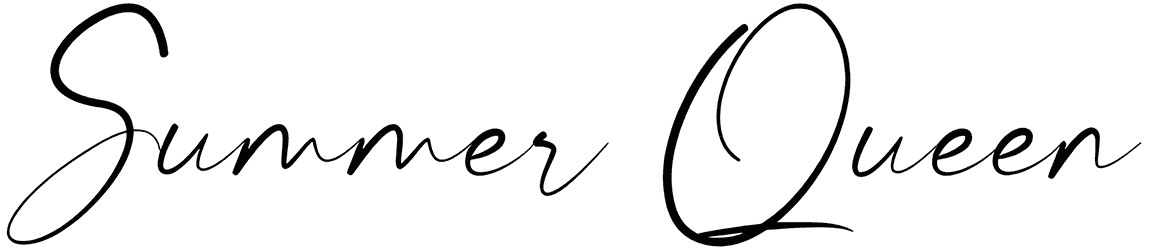
Summer Queen Font
Spark your creative ideas and make them stand out via Summer Queen, an elegant signature font that will bring a modern and bright look to your next design. It gives off a realistic and graceful touch, but in a more striking way.
Catching all the attention with its lovely appearance, and remains an unforgettable feel. You can use this functional font for many projects, such as branding, advertisements, business cards, apparel prints, and photography watermarks.